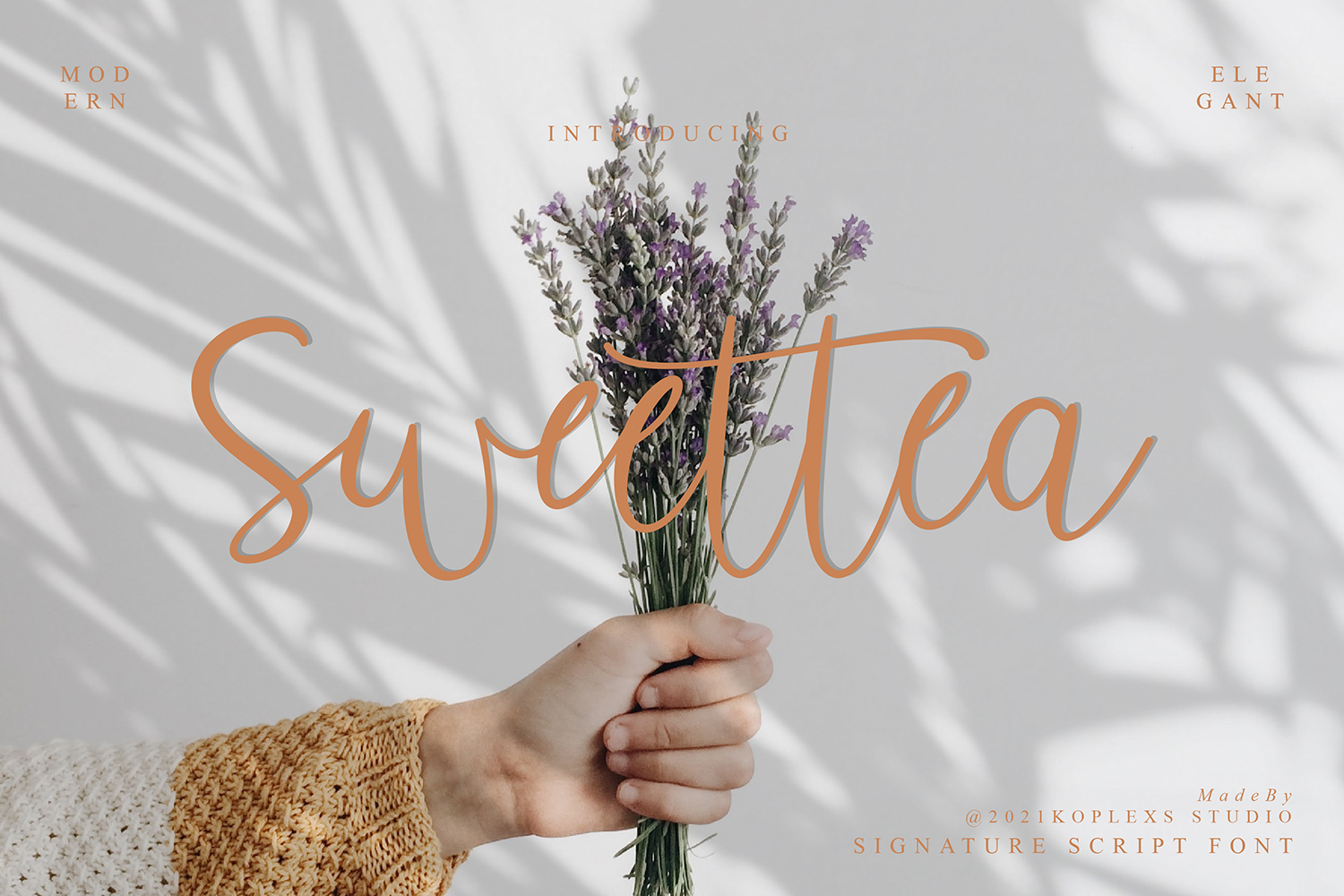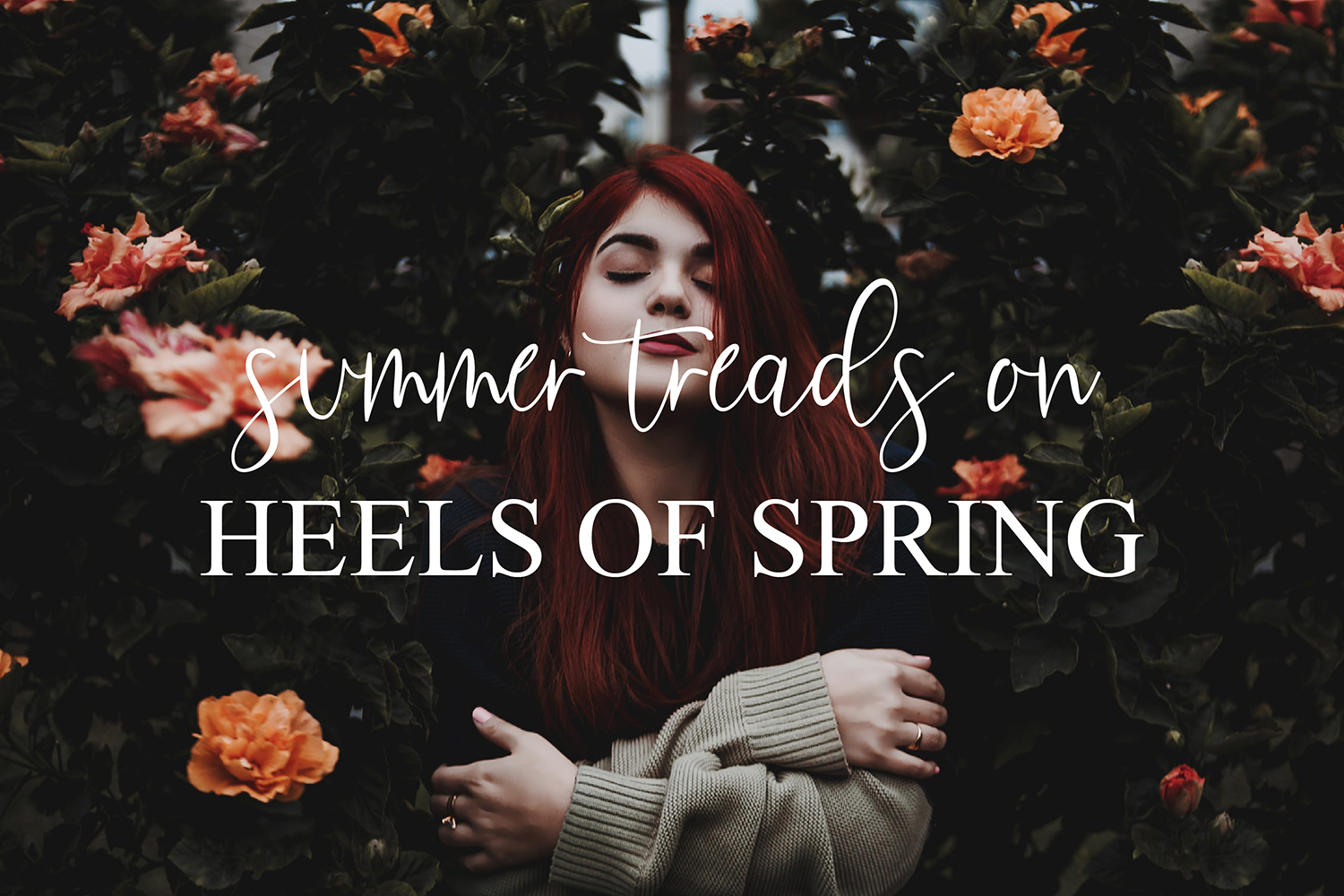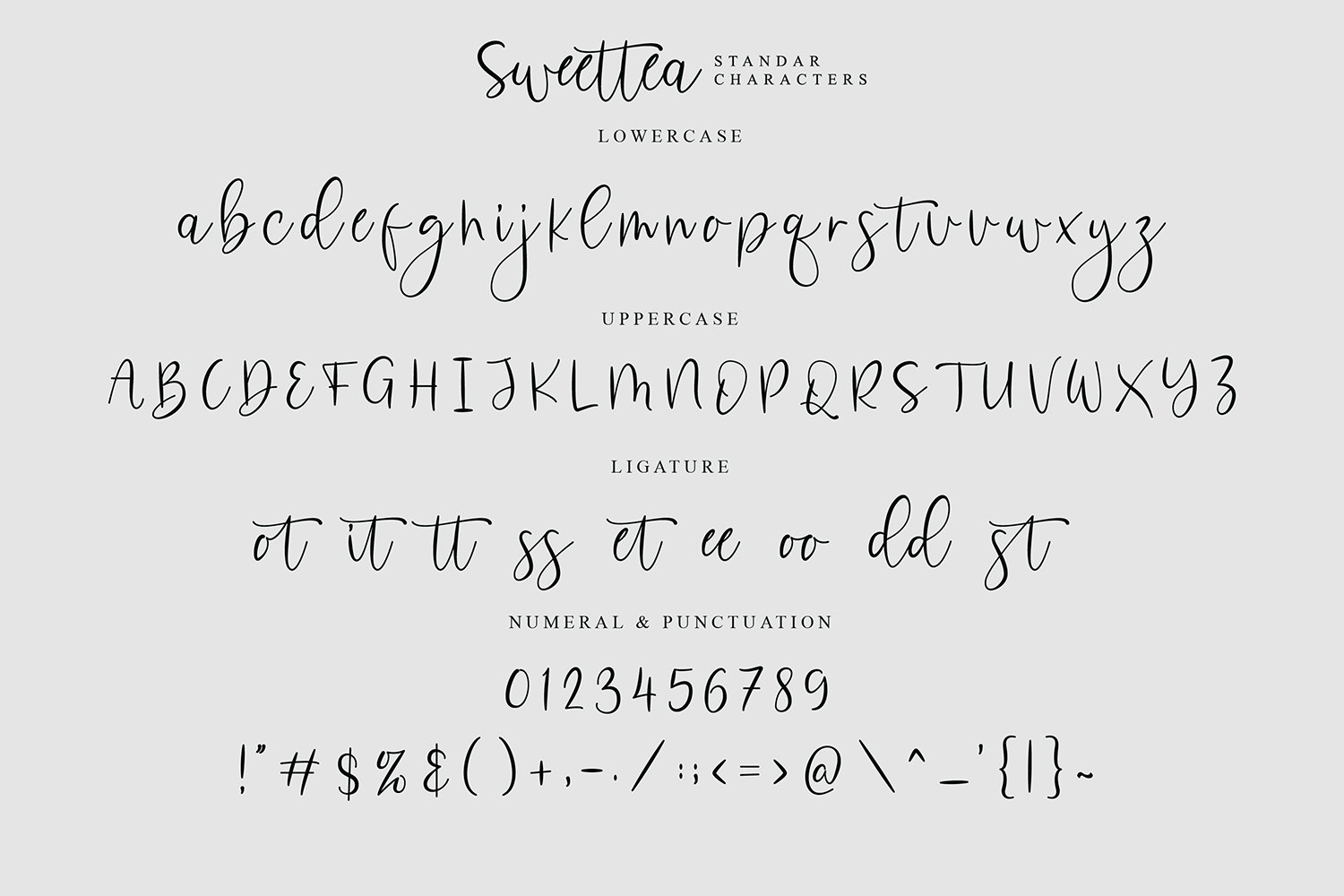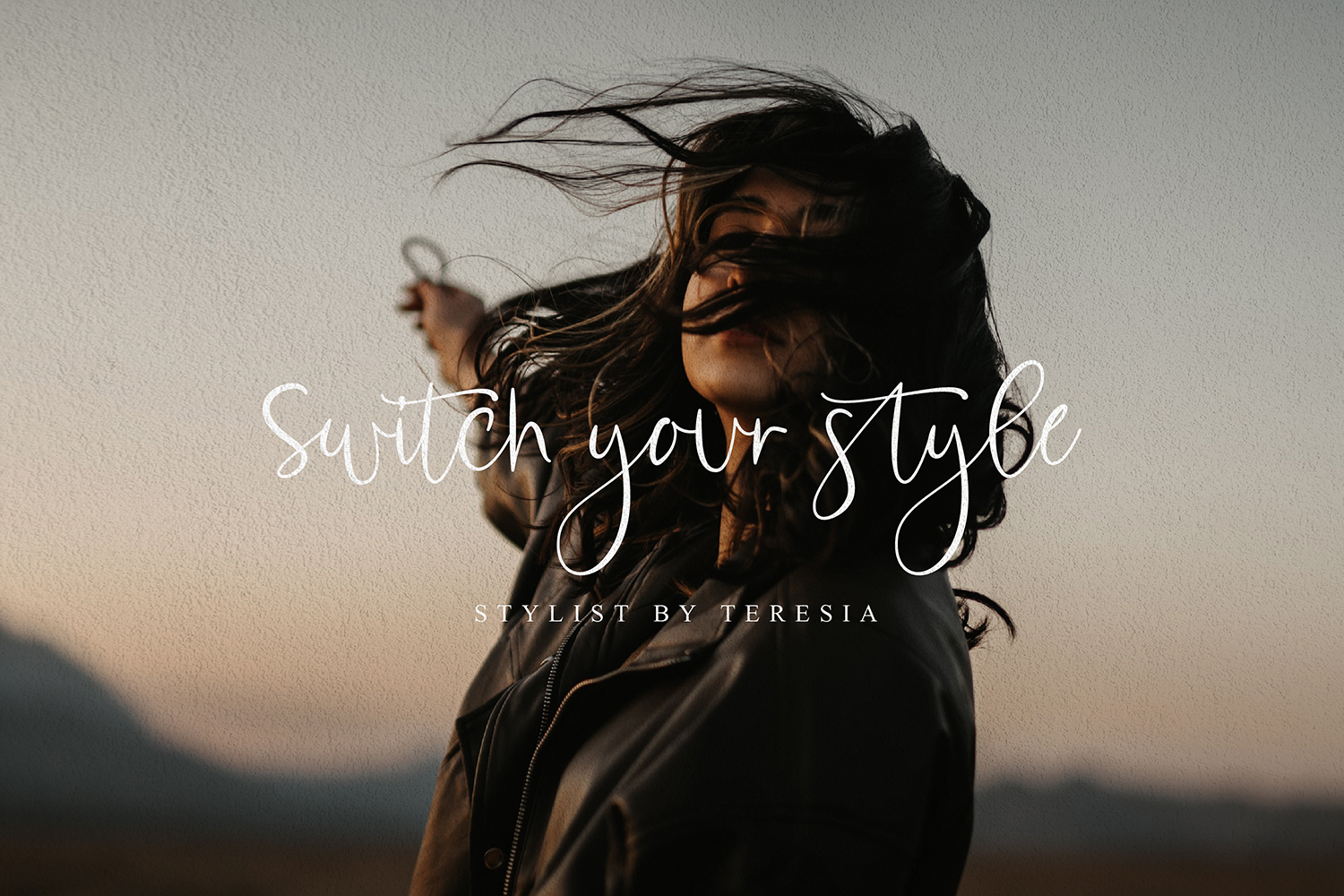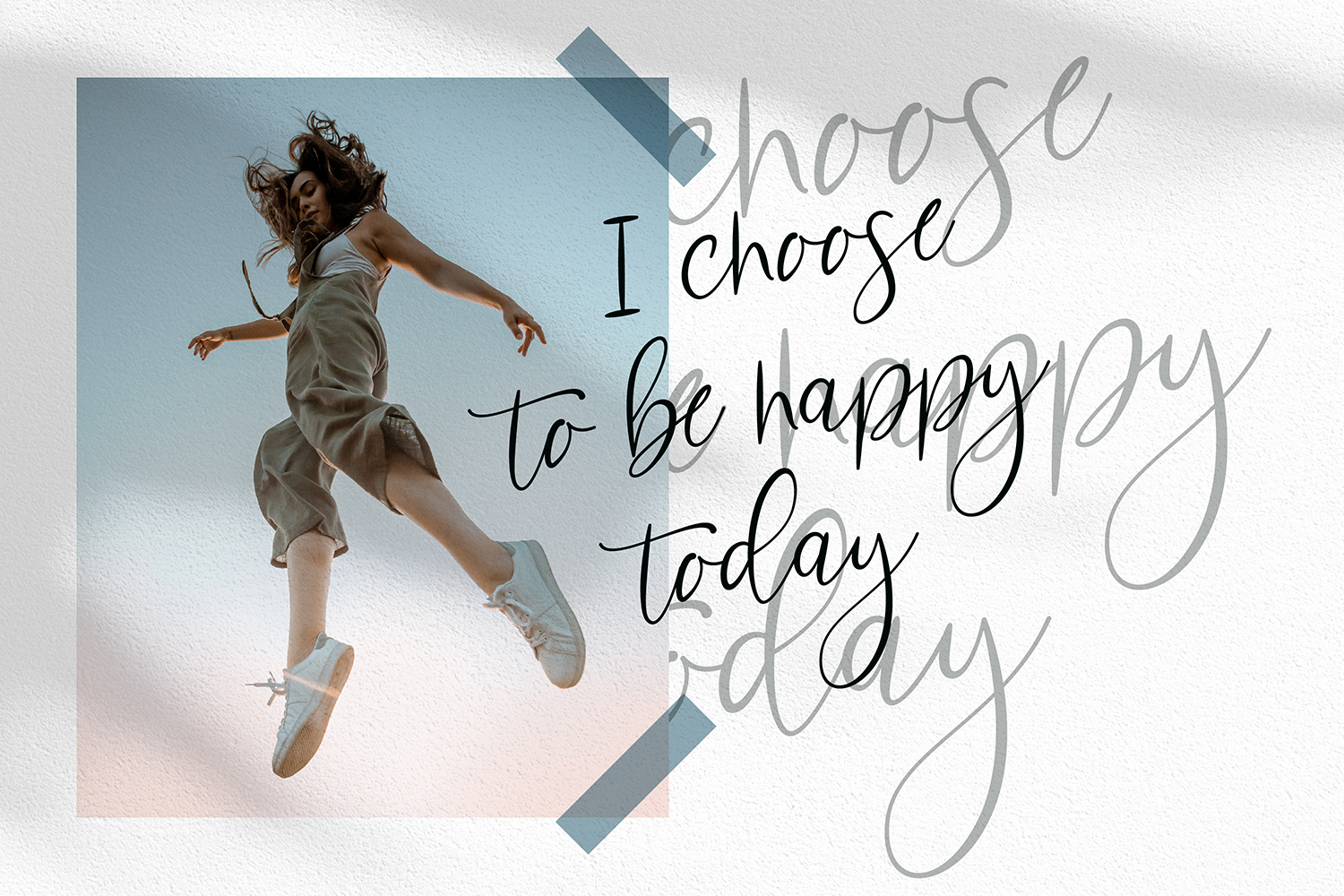
Sweettea Free Font
Experience the charm of Sweettea Free Font, a signature script font that beautifully blends modern calligraphy with elegance. This font is a versatile choice for a wide array of contemporary projects, such as headings, branding, blogs, fashion designs, logos, invitations, and much more! Elevate your creative endeavors with the enchanting touch of Sweettea, as it effortlessly adds a sophisticated flair to your work. Whether you’re crafting a brand identity or preparing stunning invitations, Sweettea is the perfect companion to achieve a truly captivating and stylish outcome. Embrace the beauty of this signature script font and witness the magic it brings to your every design. This free typeface was designed by a talented Koplexs Studio. If you like it don’t forget to check out the full version.